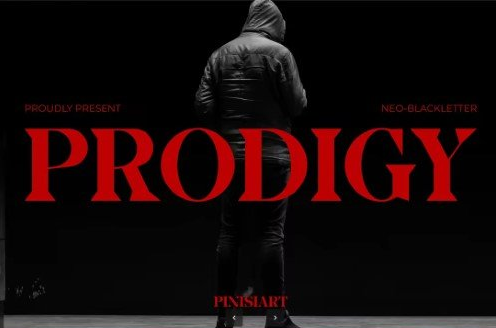
Prodigy – Bold Display Font
Prodigy is a blackletter-inspired display typeface that blends sharp terminals, high contrast strokes, and bold proportions to create a rebellious yet structured vibe. Its strong letterforms echo the visual language of protest posters and editorial headlines, making it a natural choice for projects that demand attention and authority. With a balance of geometric precision and expressive edge, Prodigy speaks in a tone that feels urban, fearless, and unapologetic.